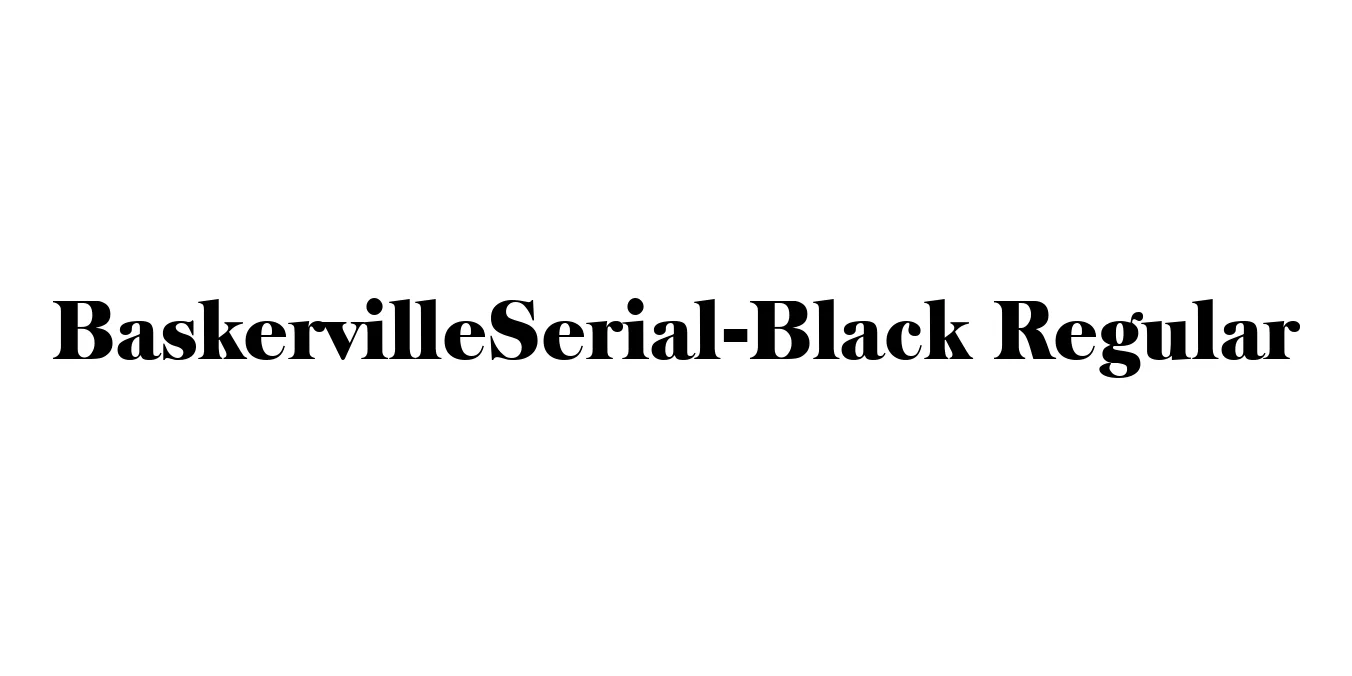
BaskervilleSerial-Black Regular
Designed by John Baskerville, SoftMaker
| Category | Transitional Serif |
| Designer | John Baskerville, SoftMaker |
| Similar Fonts | New Baskerville, Mrs Eaves, Baskerville Old Face, ITC New Baskerville, Playfair Display |
BaskervilleSerial-Black Regular is a high-weight digital interpretation of the classic transitional typeface originally developed by the master printer John Baskerville in Birmingham, England, during the 1750s. This specific weight, part of the Serial collection by SoftMaker, amplifies the characteristically sharp serifs and high stroke contrast of the original design, transforming a traditionally elegant book face into a commanding display font that demands attention while maintaining its historical pedigree.
The design features the iconic open counter of the lowercase 'g' and the distinctive curling tail of the uppercase 'Q' that are hallmarks of the Baskerville style. In its Black Regular iteration, the font is optimized for high-resolution printing and digital displays where clarity and authority are paramount. It serves as a bridge between the old-style faces of Caslon and the modern extremes of Bodoni, offering a sophisticated and timeless aesthetic for contemporary designers who require a bold, typographic voice.
BaskervilleSerial-Black Regular Best Uses
Perfect for bold magazine titles and newspaper mastheads.
Ideal for luxury brands and established corporate identities.
Great for pulling quotes or large introductory characters in print layouts.
Used frequently in premium product labeling for high-end goods.